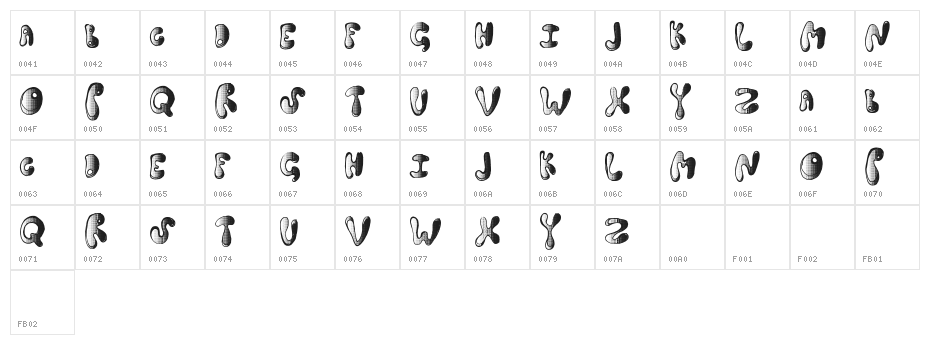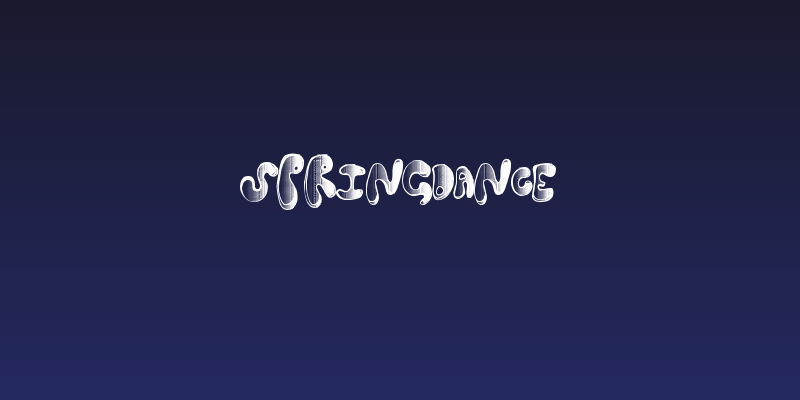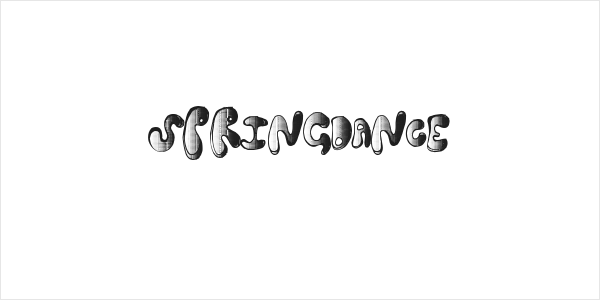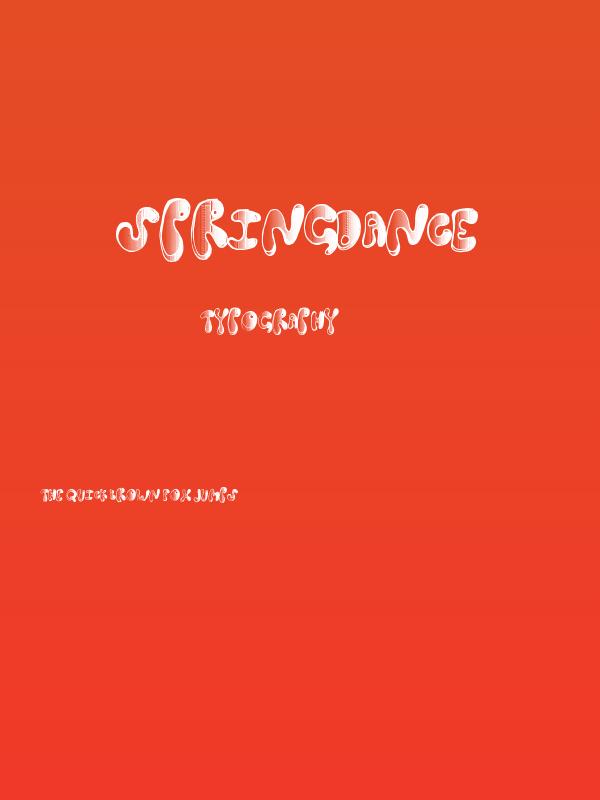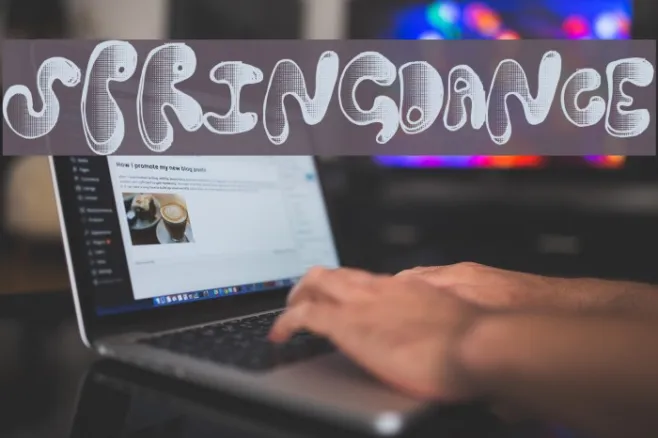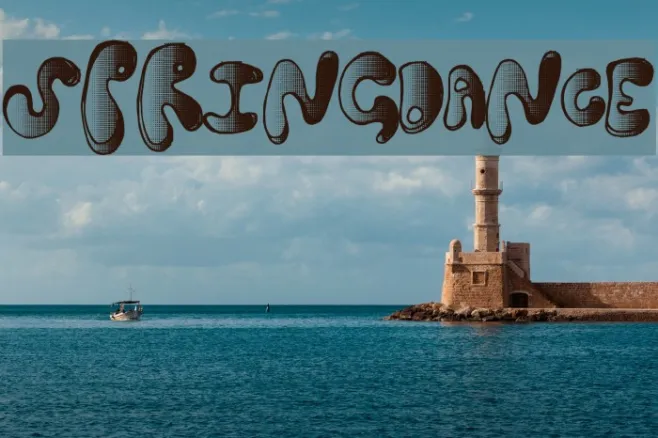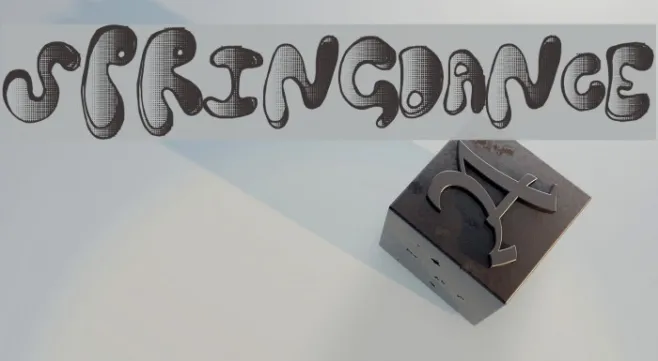
SpringDance Font
SpringDance Description
This playful and dynamic font features a bold, bubble-like design with a halftone texture that adds depth and dimension to each character. The letters are rounded and have a whimsical, cartoonish quality, making them stand out with a unique personality. The font is highly decorative, with each character appearing as if it's inflated, giving a sense of movement and fun. The halftone pattern varies in density, creating a visually engaging contrast that enhances the overall style. This font is perfect for projects that require a lively and eye-catching typeface.
| Proposed Projects | Ideal for children's book covers, playful branding, party invitations, and comic-style graphics. |